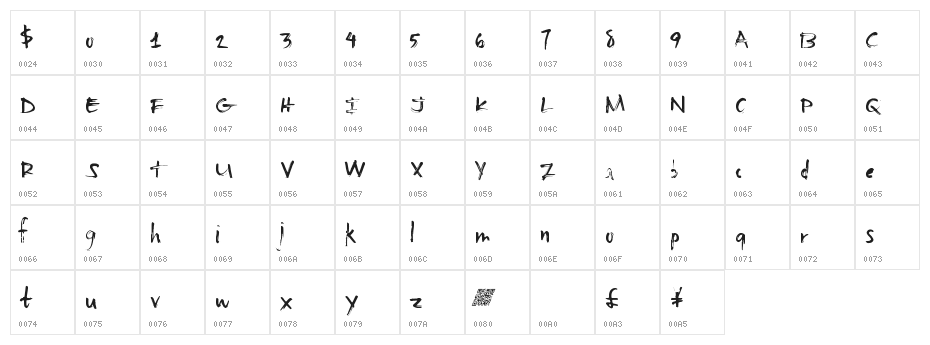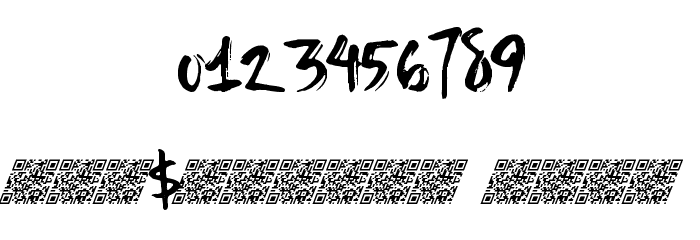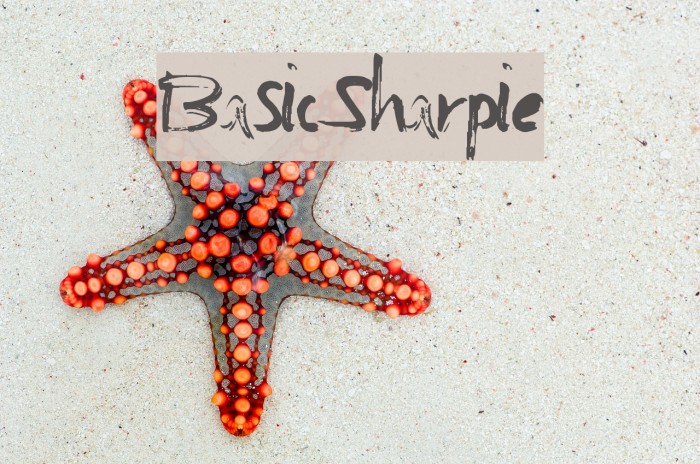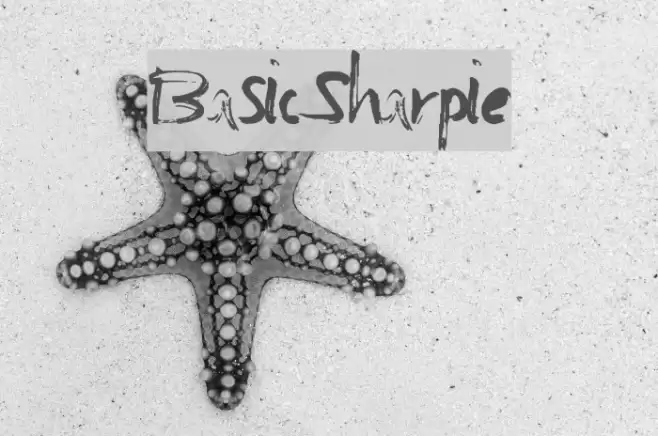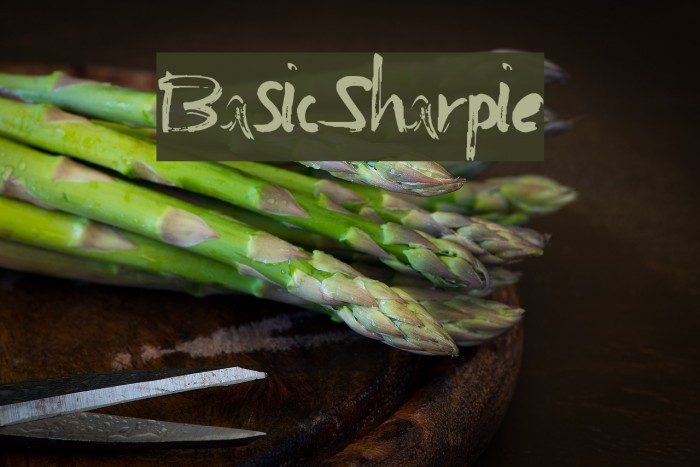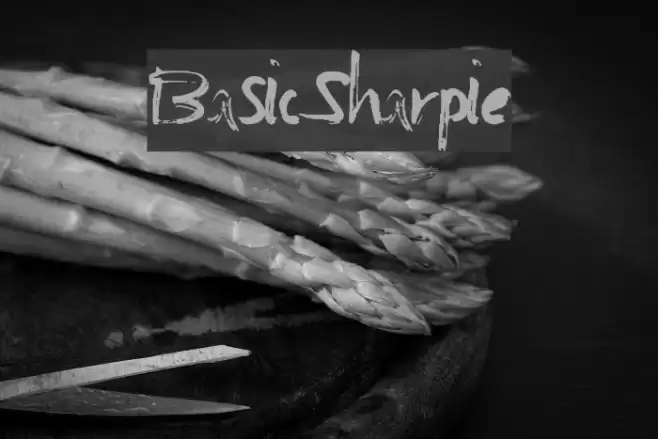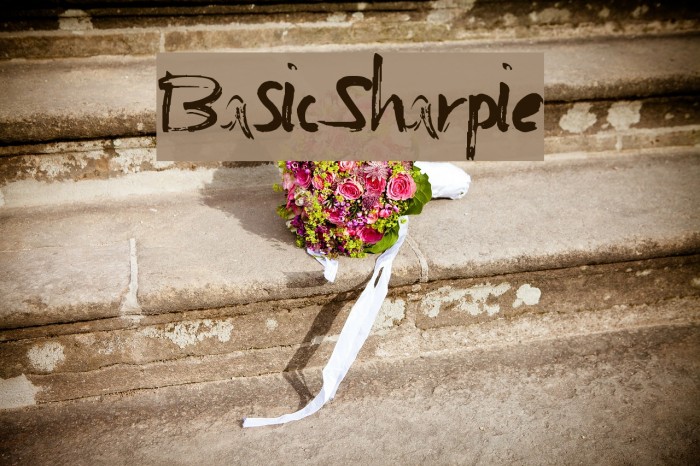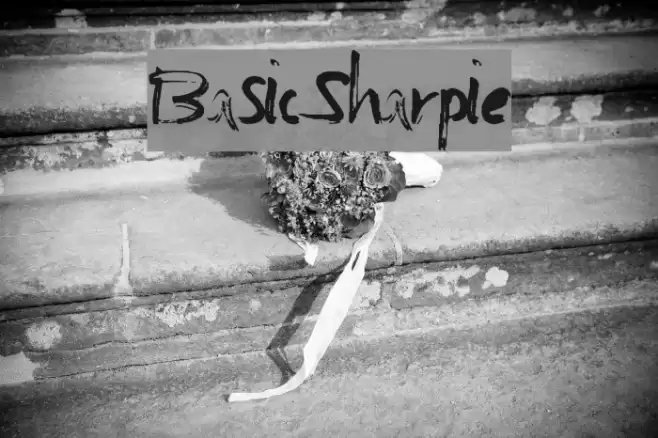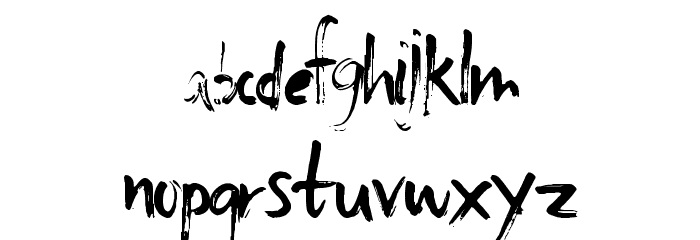
BasicSharpie Font
BasicSharpie Description
This font features a bold and expressive style, reminiscent of hand-drawn brush strokes. The characters have a rough, textured appearance, giving them a dynamic and energetic feel. The uppercase letters are particularly striking, with sharp angles and varying line thicknesses that create a sense of movement. The lowercase letters maintain this energetic style, with some characters featuring elongated strokes that add to the overall flow. Numbers and special characters are consistent with the font's bold and artistic theme, making them stand out in any design. This font is ideal for projects that require a strong visual impact and a creative touch.
| Overall Style | Modern, Artistic |
| Proposed Projects | Ideal for posters, album covers, graffiti art, and branding materials that require a bold, artistic flair. |